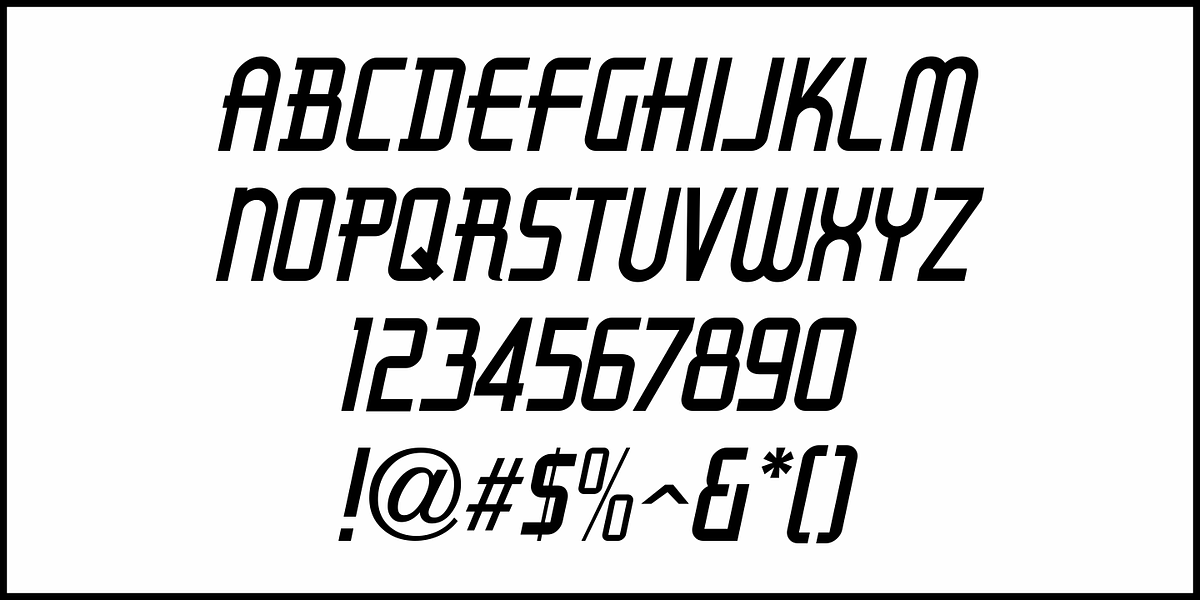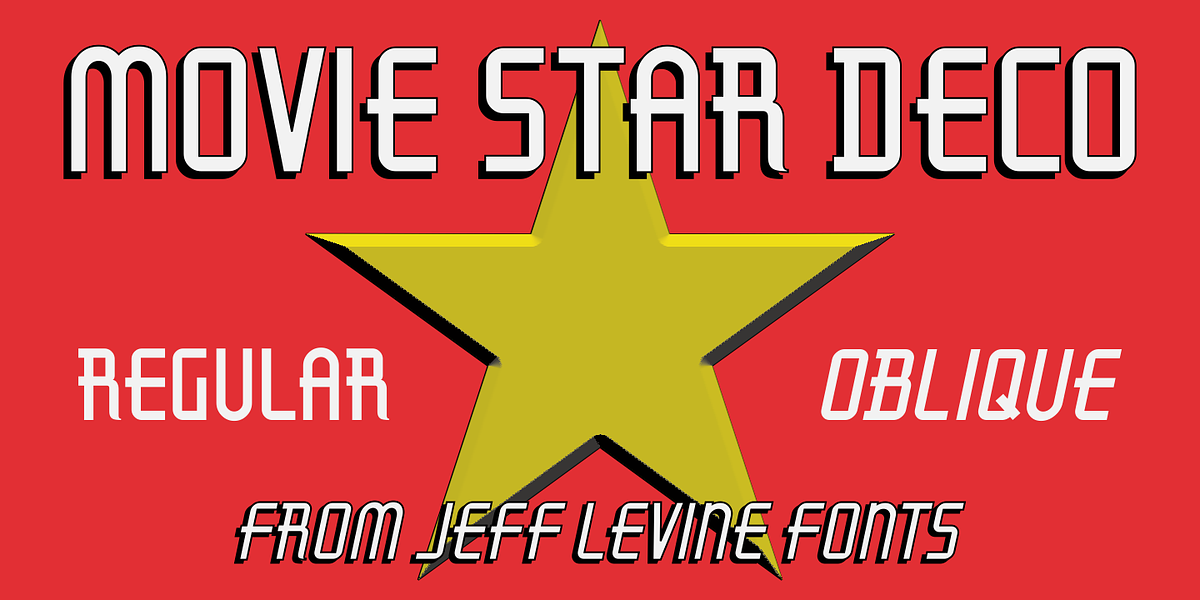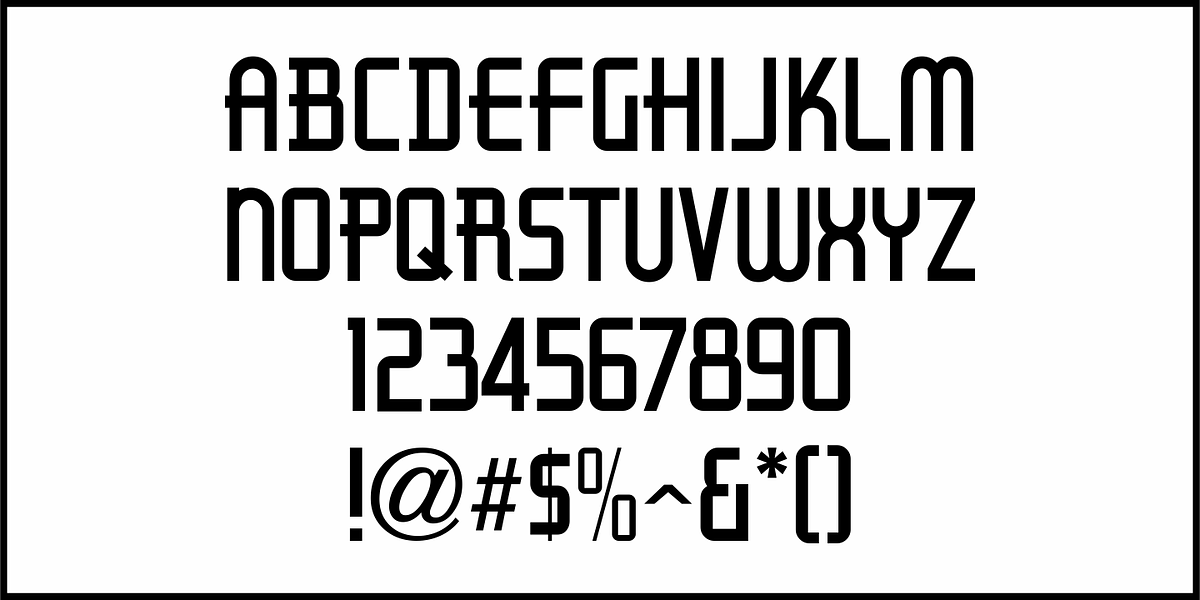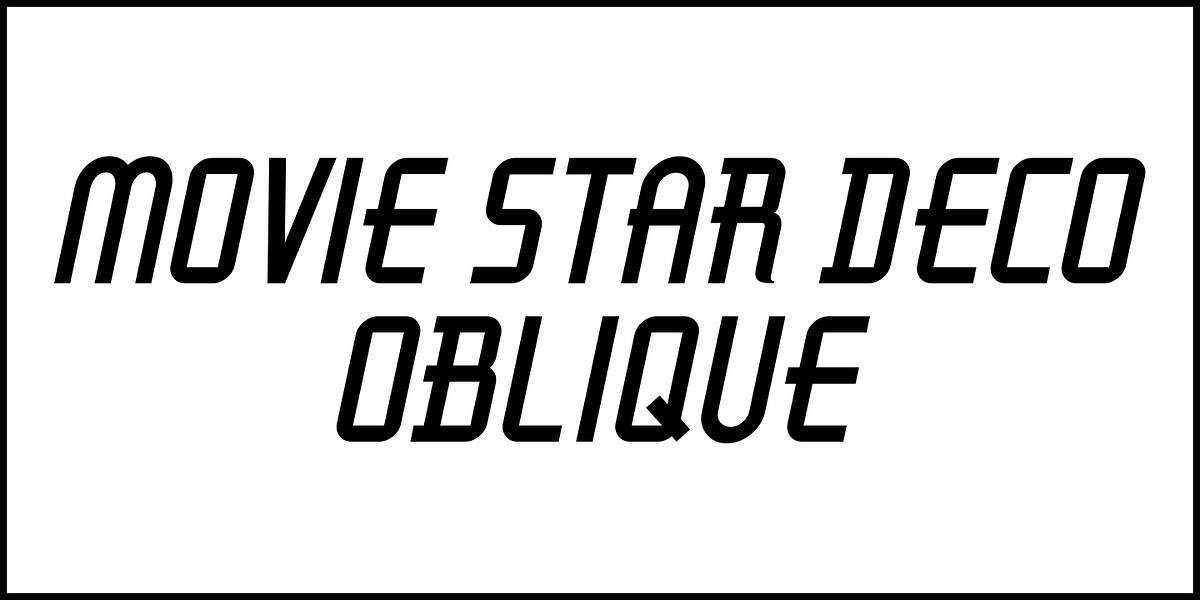
Movie Star Deco JNL
Here’s a jaunty little Art Deco sans serif type design inspired by the headline of a feature article on Carole Lombard found in the August, 1937 issue of Hollywood magazine.
This served as the inspirational model for Movie Star Deco JNL, and is available in both regular and oblique versions.